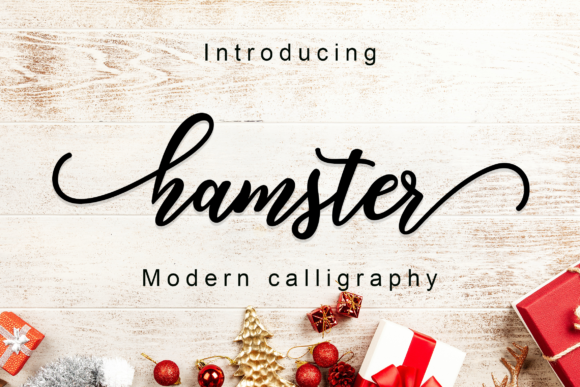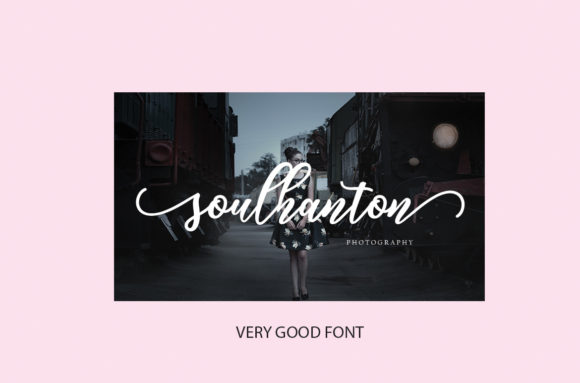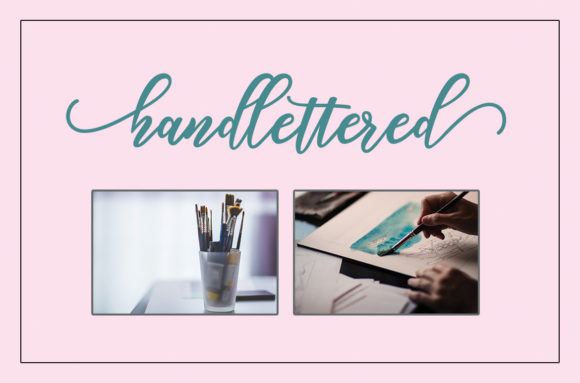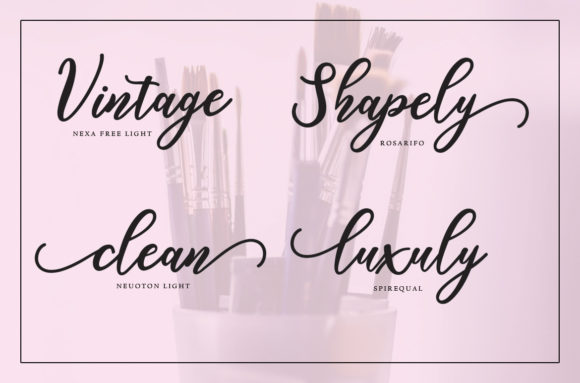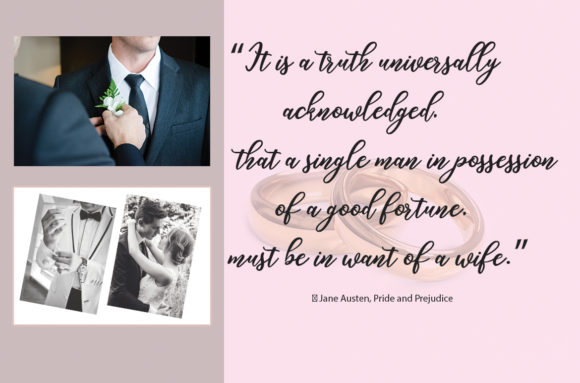
Hamster Script Font
About Hamster Script Font
The Hamster Script comes loaded with stunning swashes and alternates.
Works great for a large range of designs that need a smooth personal touch.